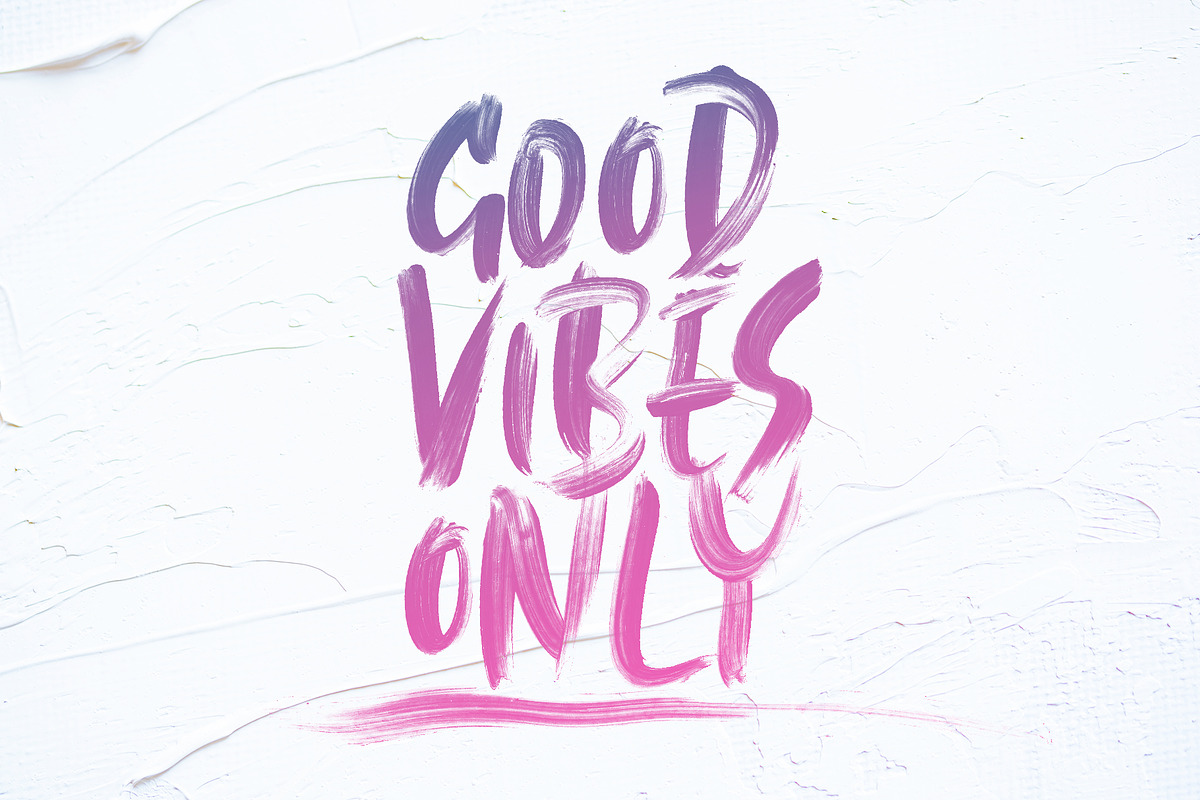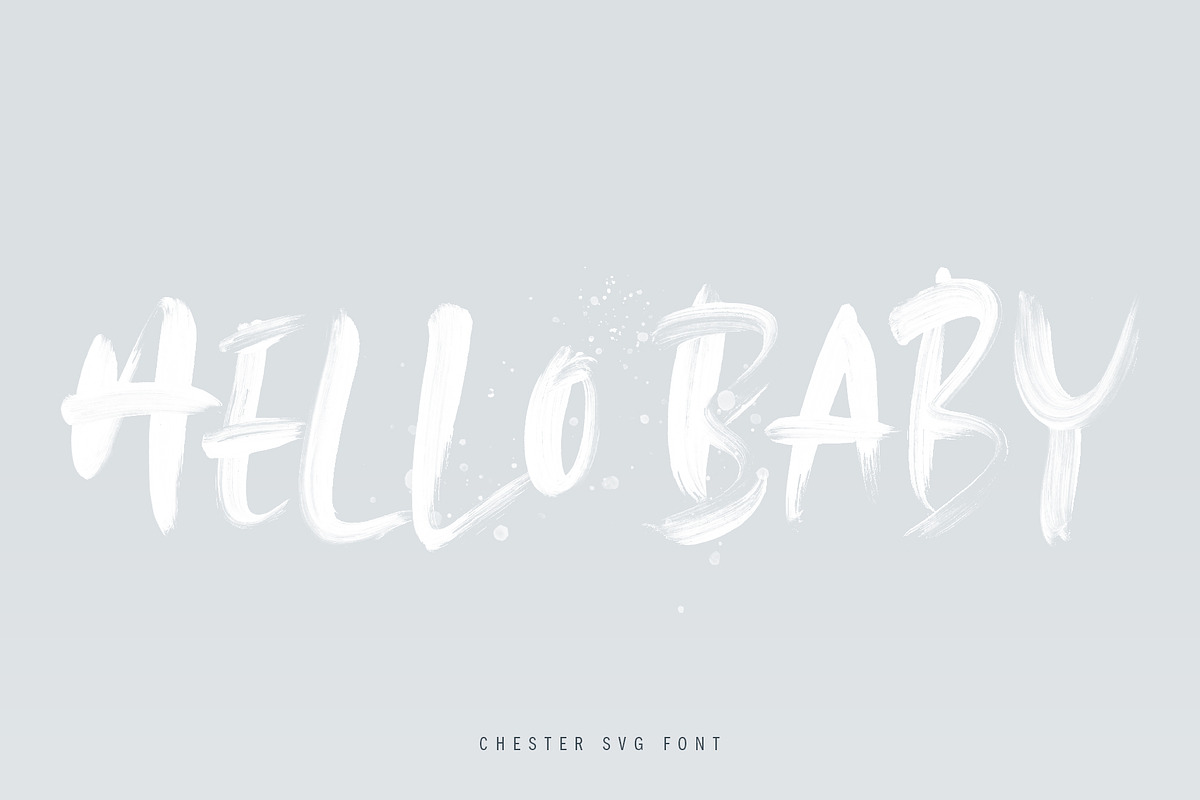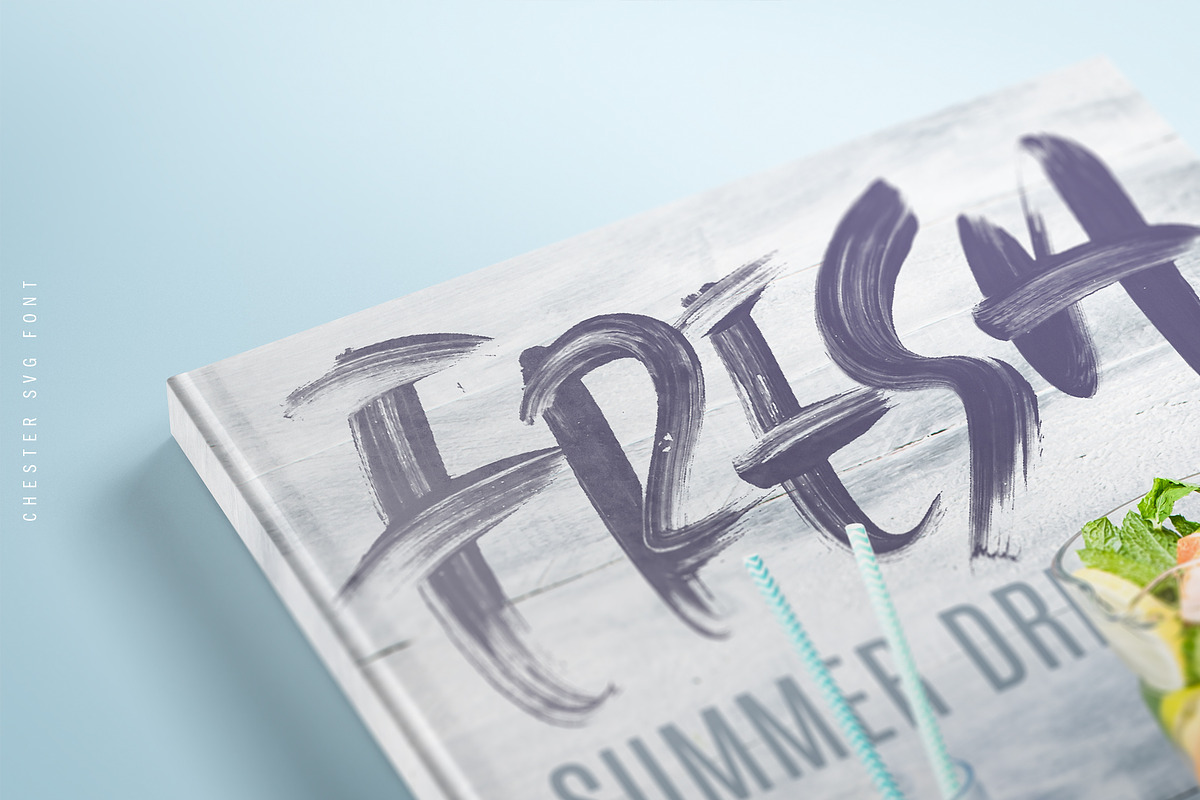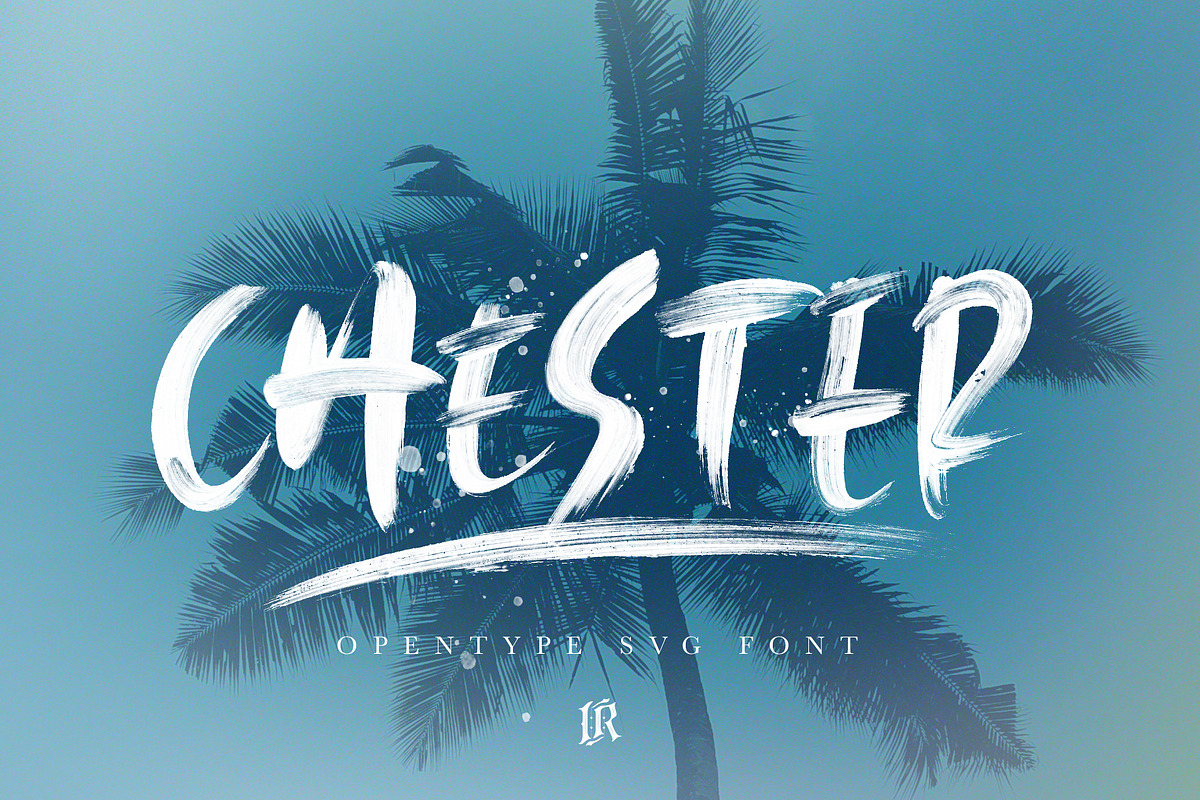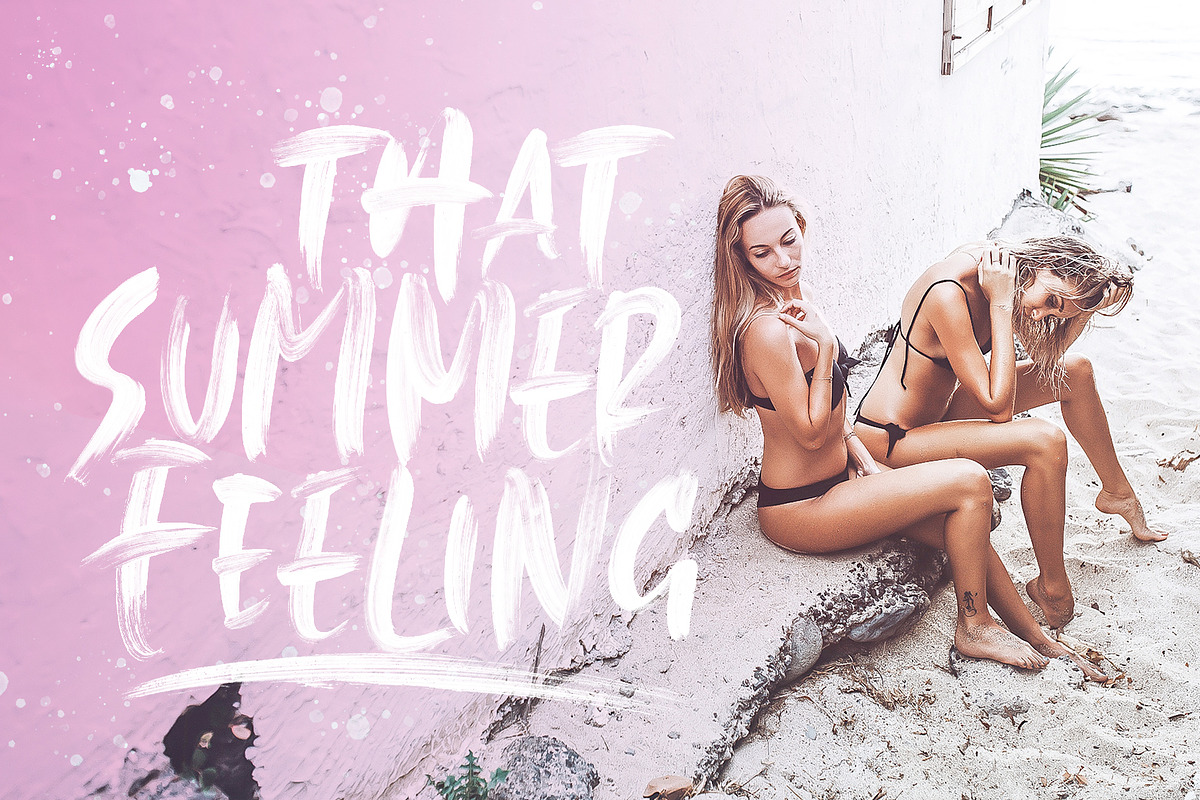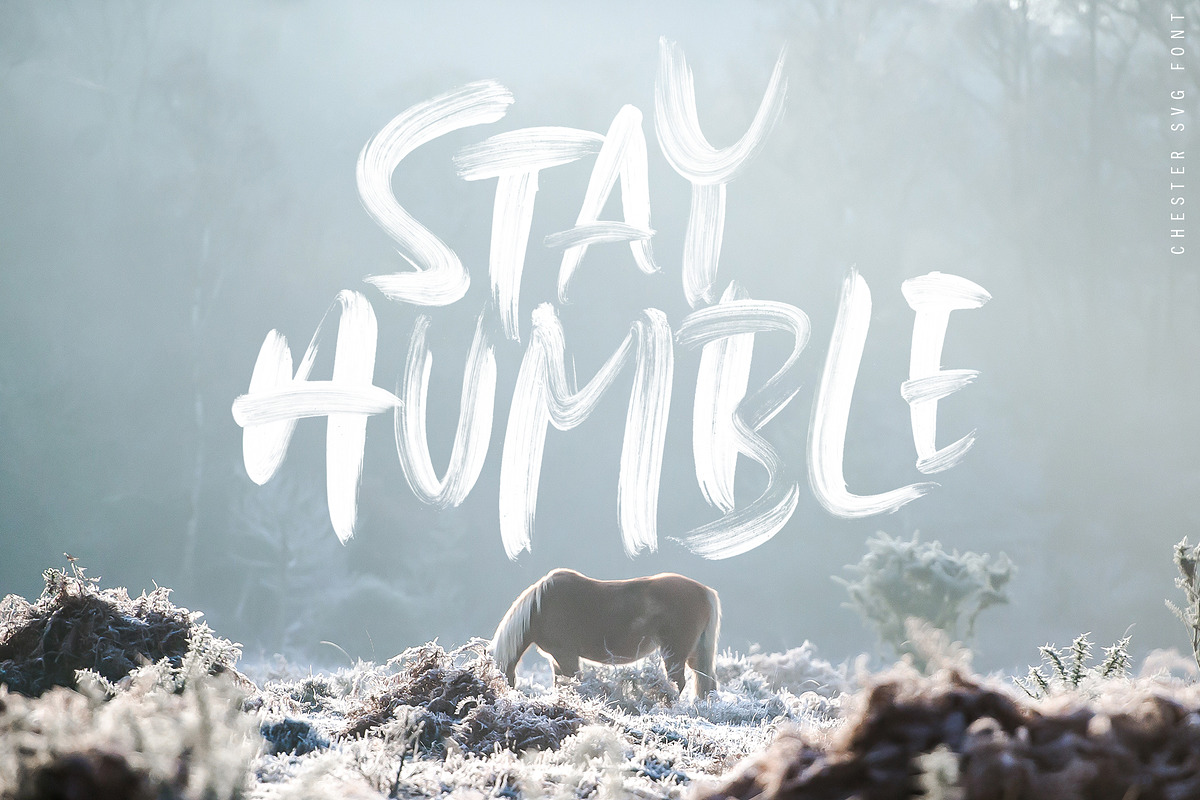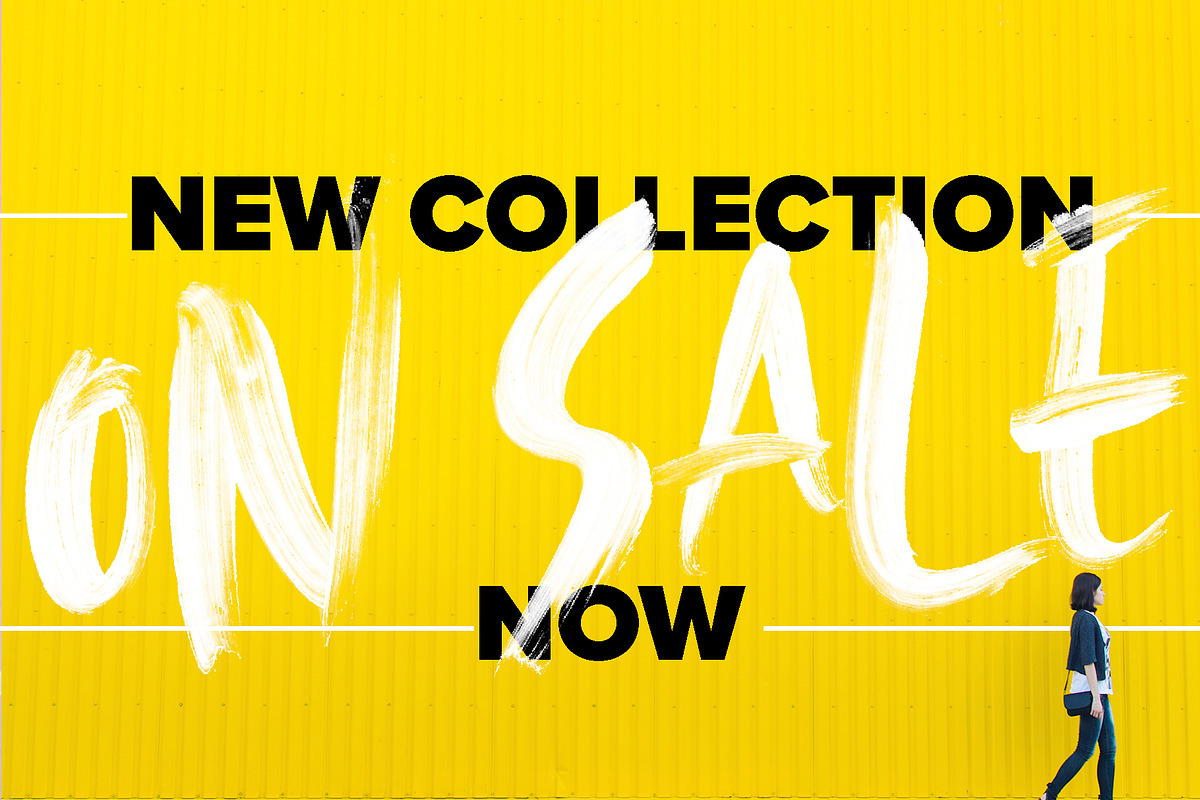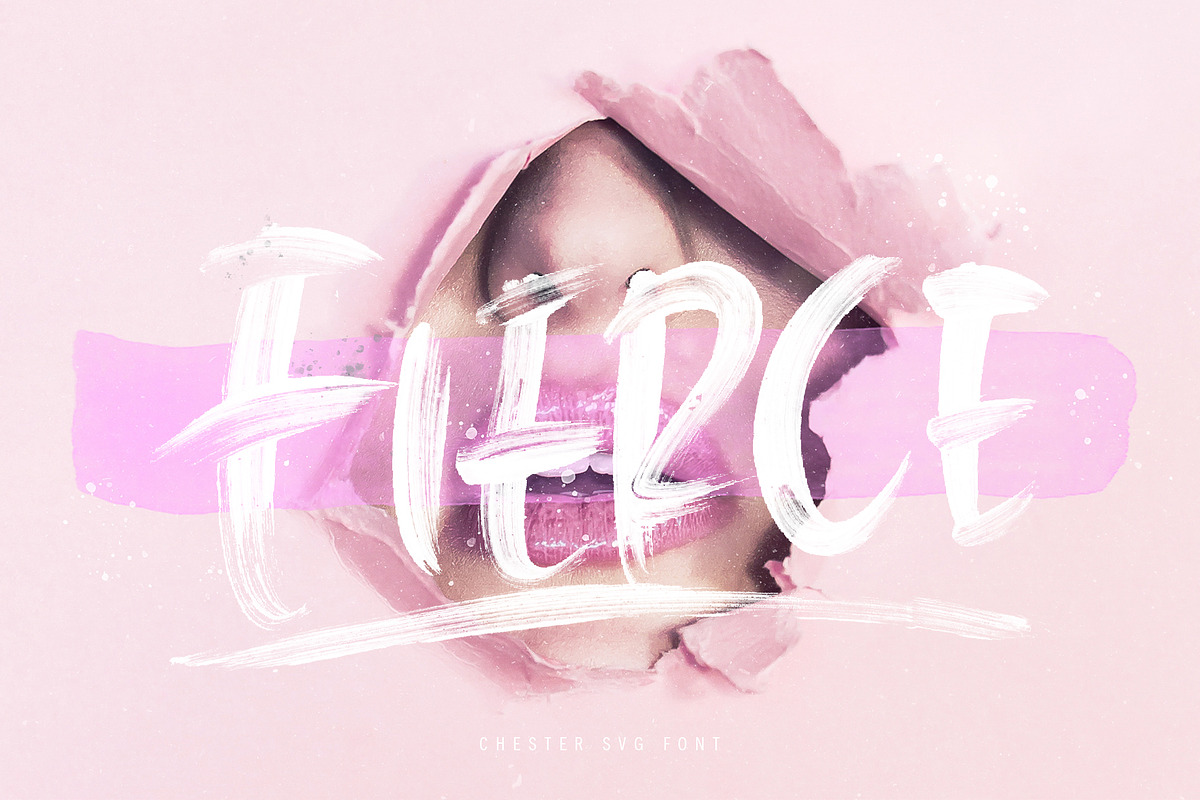
Chester SVG Font
Chester SVG Font preserves all the high definition detail of the original handwritten letters. Using OpenType-SVG technology it truly looks realistic. The OpenType-SVG format requires Photoshop CC 2017 or Illustrator CC 2018 (or newer). Regular OTF format is also included.
Chester OpenSVG ONE A high definition OpenSVG brush font with realistic texture (You need to be using Photoshop CC 2017.1.1, Illustrator CC 2018 or later)
Chester OpenSVG TWO A high definition OpenSVG brush font with realistic texture (You need to be using Photoshop CC 2017.1.1, Illustrator CC 2018 or later)